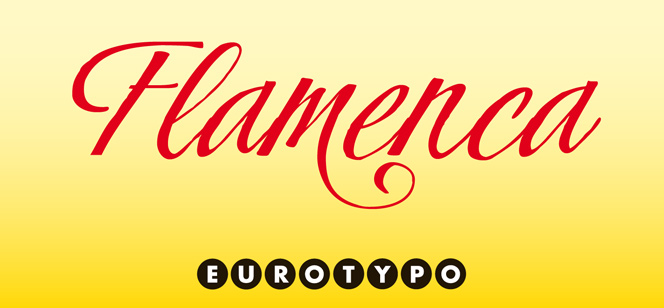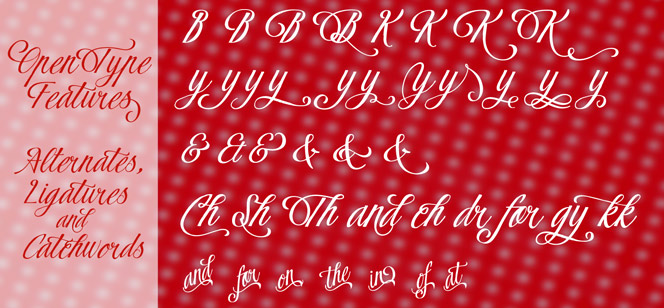
Flamenca font
Flamenco! This word has always been associated with fire! Fiery people, fiery tempers, fiery music, fiery country. In fact, Flamenco is the result of one of the finest mixtures in the history of art – Jewish, Arab, Christian and Gypsy elements combined to form an unforgettable style. It emerged firstly in Andalusia and quickly spread throughout Spain. Flamenco incorporates singing, guitar playing, dance and clapping. It is so easily recognized, that it could be said without any doubt that it is one of the trademarks of Spain when it comes to culture.
Flamenco’s fiery rhythm inspired the Argentine type designer Carine de Wandeleer to create Flamenca Regular font and Flamenca Luz font. She achieved Flamenca’s authentic look by using glyphs and ornaments that lead us exactly to Andalusian patios and the Flamenco dance. Apart from that Flamenca font is a modern typeface family with 747 glyphs that offers many OpenType features as: swashes, standard and discretionary ligatures, alternates for each letter, catchwords, initial and terminal forms, ornaments that could be added to the beginning or the end of every letter etc. Language support is provided for all Western, Central and eastern European language. All this creates a whole lot of opportunities and practically endless combinations.